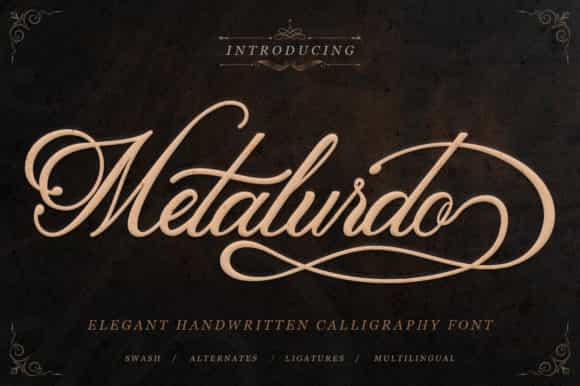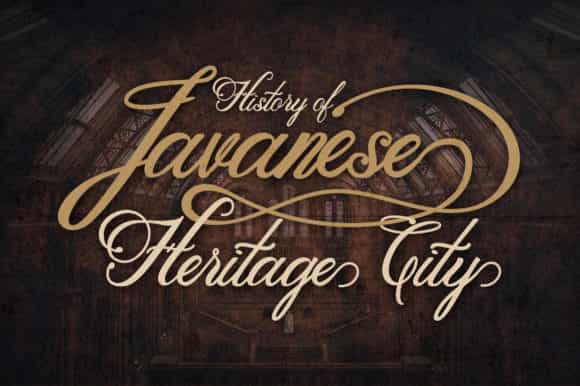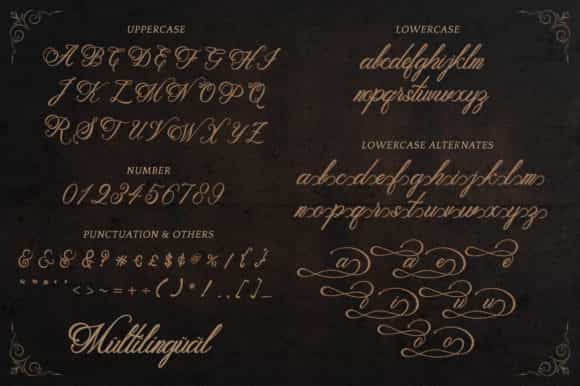
The Metalurdo is a stylish handwritten calligraphy font which is adorned with the beautiful swashes. It is a great font for various projects, for example, logos and branding, invitations, stationery, wedding designs, social media posts, advertisements, product packaging’s, and many other things!